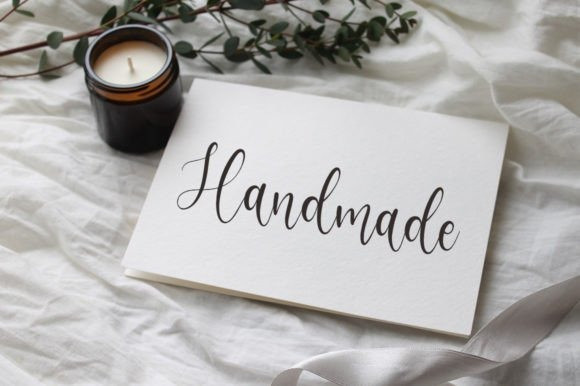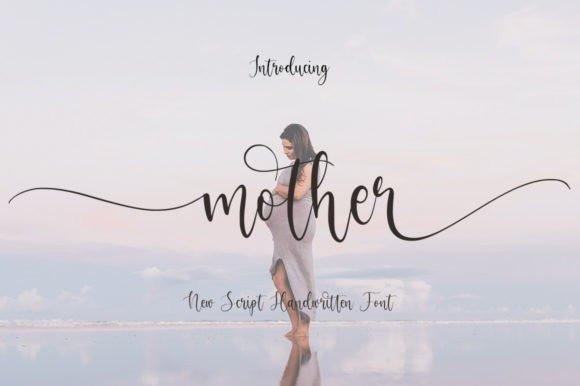
Mother Font
Mother Script Font is a lovely and sweet handwritten script font. This gentle font will look gorgeous on a variety of design ideas. It will add a joyful and romantic touch to each of your projects.